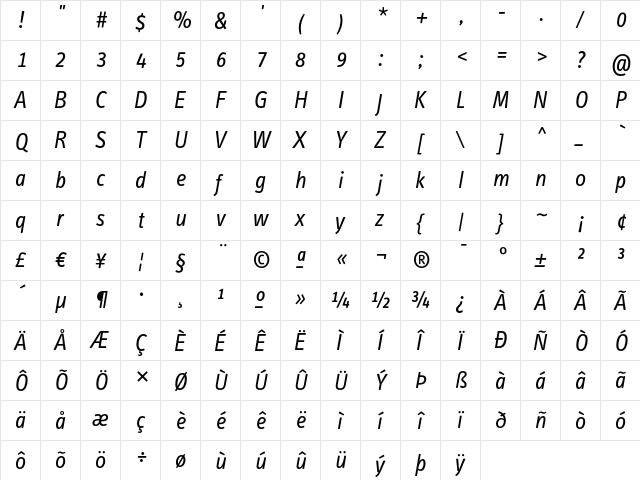
InfoTextRegularTf Italic
Design Context for InfoTextRegularTf Typeface
InfoTextRegularTf takes a measured approach to typography — its balanced proportions and neutral character make it a reliable workhorse for both digital and print work. Its italic angle brings a sense of urgency and motion to the letterforms.
Pro Tip: Use InfoTextRegularTf for emphasis, pull quotes, and subheadings where its slanted energy can add rhythm to the layout.